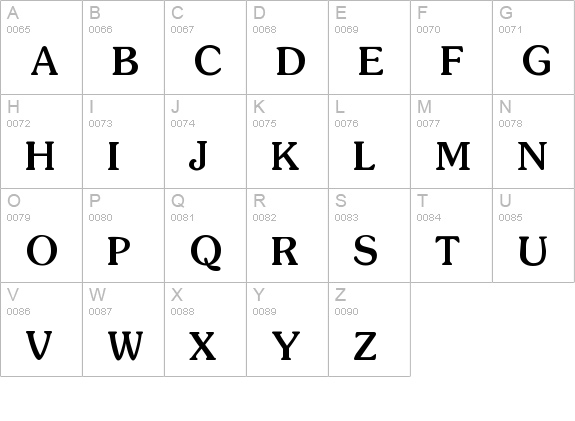
Soutane fed Font Details
Introducing Soutane Fed Font, a stunning display typeface that exudes elegance and sophistication. With its refined and graceful letterforms, Soutane Fed Font adds a touch of class to any design project. Inspired by the traditional elegance of clerical attire, this font pays homage to the iconic garment, known as the soutane. The sleek and elongated strokes of Soutane Fed Font reflect the flowing lines of this distinguished attire, creating a sense of timeless beauty. This font is perfect for creating eye-catching headlines, branding materials, invitations, and more. Whether you're designing for a high-end fashion magazine or an upscale event, Soutane Fed Font will elevate your design to new heights of sophistication. What sets Soutane Fed Font apart is not only its impeccable design but also its accessibility. We believe that creativity knows no boundaries, and that's why Soutane Fed Font is freely available to download at FontsMarket.com. We want to empower designers, artists, and creators from all walks of life to bring their visions to life, without any barriers. So go ahead and unlock the potential of Soutane Fed Font. Download it today and let your creativity soar. With its exquisite details and timeless appeal, Soutane Fed Font is sure to make a lasting impression on any project.